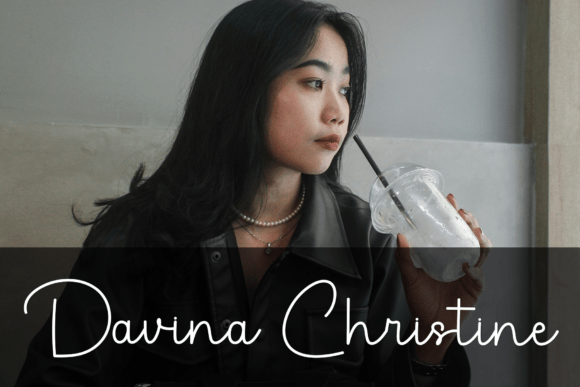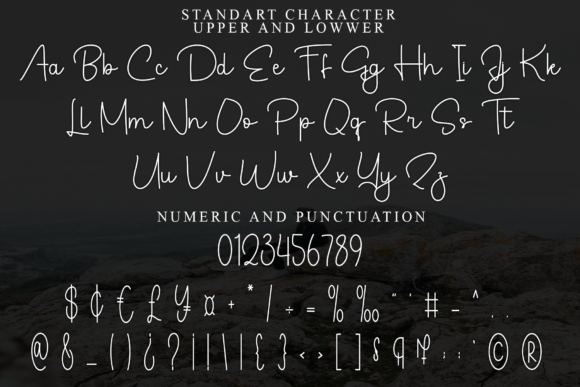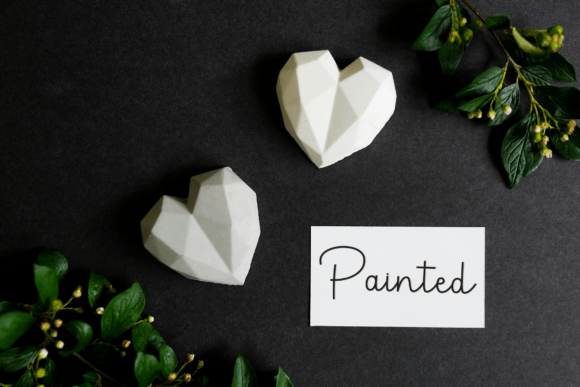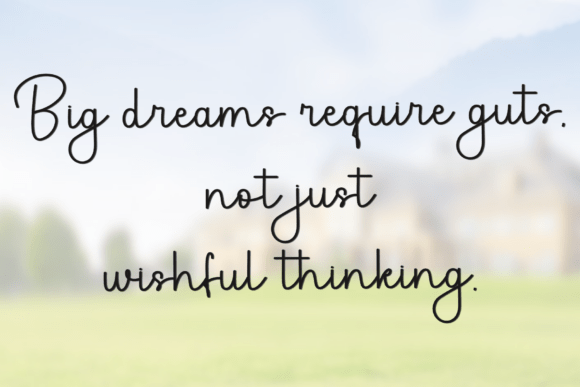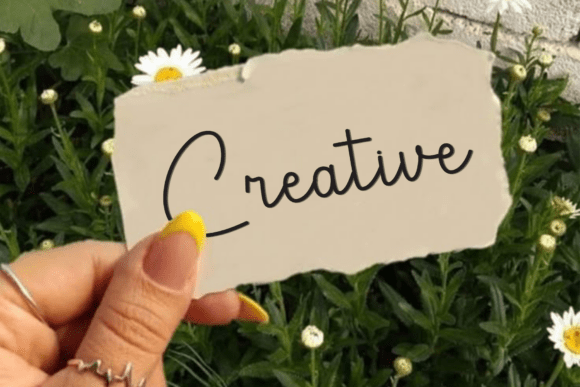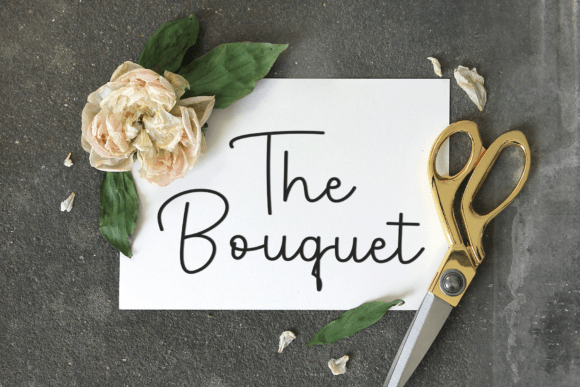
Introduction to Delight Calligraphy Font
Have you ever stumbled upon a design that immediately caught your eye and left you wondering, ‘What’s the magic behind this?’ For designers and creatives, that ‘aha’ moment is what drives us to experiment and push the boundaries of our craft. It’s in those moments that we discover new design resources that can elevate our work and make it truly unforgettable. One such treasure is the Delight Calligraphy Font, a beautiful and unique typeface that adds a touch of elegance to any creative project.
Whether you’re working on a branding project, crafting a wedding invitation, or designing a digital product, Delight Calligraphy Font is an excellent addition to your design toolkit. With its soft, high-quality strokes and transparent background, this font is perfect for designers who crave a distinctive and versatile design resource that can be used across various applications, including Windows and open-source platforms.
What makes Delight Calligraphy Font truly valuable is its ability to bring a personal touch to your designs, making them stand out in a crowded market. By incorporating this beautiful font into your creative project, you’ll not only enhance its visual appeal but also convey a sense of sophistication and attention to detail – qualities that are sure to delight your audience.
Key Features of Delight Calligraphy Font
- This elegant font features a transparent background, making it easy to customize and layer with other design elements.
- Delight Calligraphy Font includes 1200+ glyphs, including uppercase and lowercase letters, numbers, and punctuation marks, making it suitable for various design applications.
- This beautiful calligraphy font is perfect for wedding invitations, event signage, quotes, and other creative projects where a touch of elegance is required.
Honest Review: Delight Calligraphy Font
I recently stumbled upon the Delight Calligraphy Font and I must say, it’s a fantastic design resource. The first thing I noticed was its high quality and elegant feel, making it perfect for creative projects that require a touch of sophistication.
One of the standout features of this font is its versatility. It’s suitable for a wide range of projects, from wedding invitations to branding materials, and its transparent background makes it easy to layer and combine with other design elements.
- ✨ High-quality design with a beautiful, elegant feel
- ✨ Versatile and suitable for various creative projects
- ✨ Transparent background for easy layering and combining
- ⚠️ Limited character set, which may not be ideal for longer texts
- ⚠️ May require additional design work to achieve the desired look
Overall, I’m impressed with the Delight Calligraphy Font. Its high quality, versatility, and free download make it a great design resource for designers and creatives. While it may have some limitations, it’s a fantastic addition to any design toolkit.
Design Tips
To get the most out of Delight Calligraphy Font, use it on a transparent background to create a beautiful, layered look. Experiment with different font sizes and colors to add depth and interest to your design.
Delight Calligraphy Font is perfect for a variety of creative projects, including wedding invitations, baby shower decorations, and social media graphics. It’s also a great resource for designers who want to add a touch of elegance and sophistication to their designs.